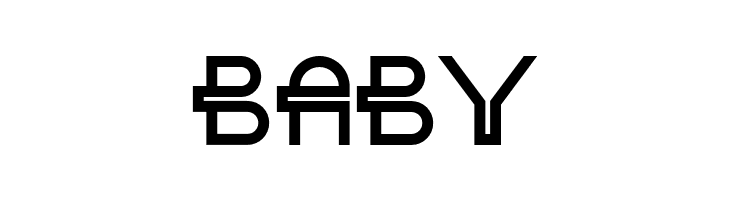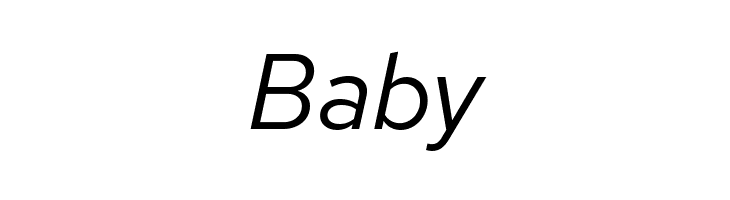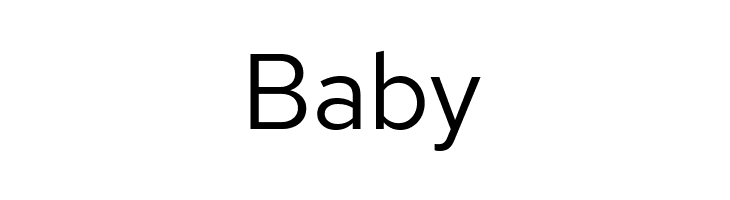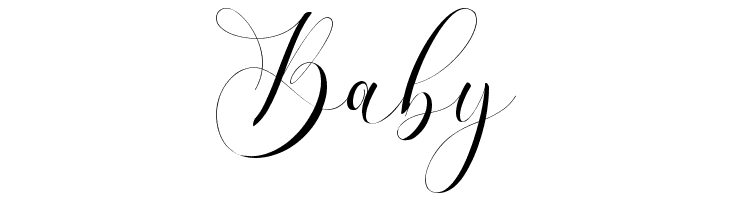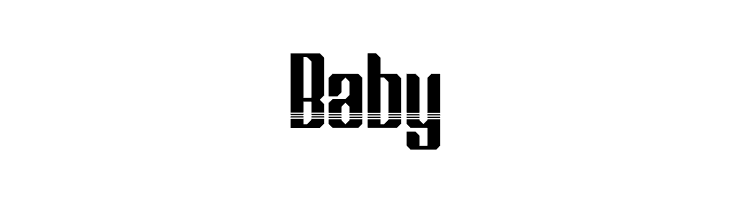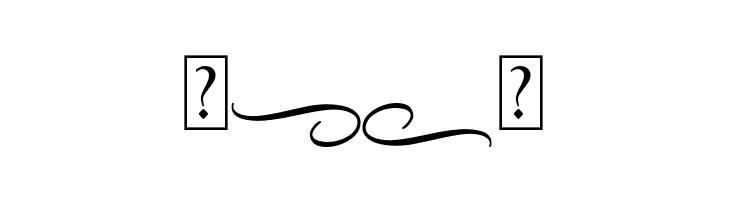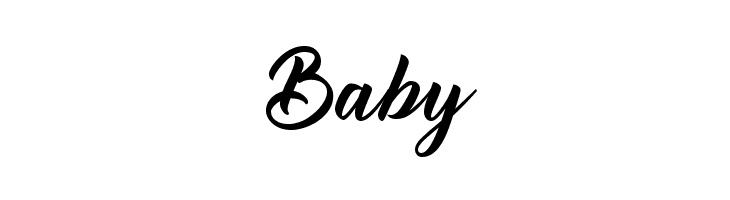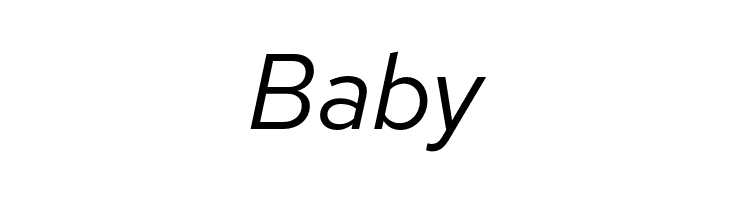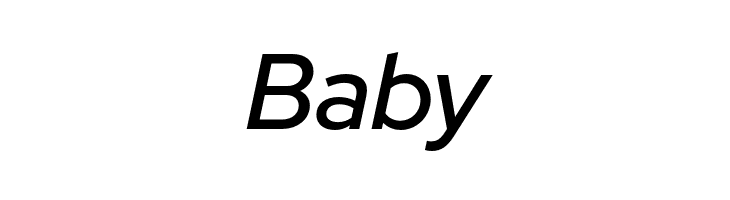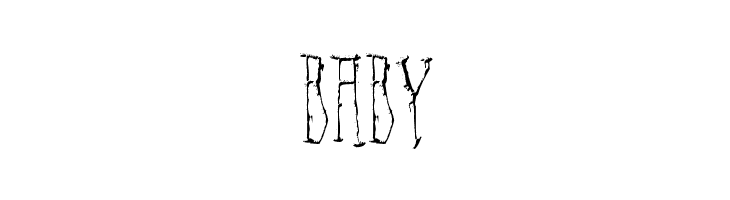
A modern, italic sans-serif font with medium weight and low contrast.
A modern, geometric sans-serif font with clean lines and excellent readability.
A modern, geometric sans-serif font with excellent readability and versatility.
A bold, modern sans-serif font with strong geometric shapes and balanced spacing.
A bold, modern sans-serif font with clean, geometric lines.
A bold, italic sans-serif font with a modern and professional look.
A bold, italicized font with a modern and clean design.
A modern, italic sans-serif font with clean lines and balanced proportions.
A modern, italic sans-serif font with clean lines and excellent legibility.
A modern, geometric sans-serif font with clean lines and excellent readability.
A modern, geometric sans-serif font with balanced proportions and clear readability.
A modern, italic sans-serif font with balanced proportions and high legibility.
A modern, italicized typeface with clean lines and balanced proportions.
A bold, industrial font with a unique horizontal striped pattern.
A playful, casual handwritten font with smooth, flowing lines.
A flowing, elegant script font with smooth, connected strokes.
A bold, geometric font with a futuristic and modern design.
A decorative rope-themed font with a nautical and playful style.
An elegant script font with intricate swashes and flourishes, ideal for sophisticated designs.
A bold, italic font with sharp angles and a reflective, futuristic style.
A bold, flowing script font with elegant and cursive letterforms.
A bold, cursive, and italic font with a dynamic handwritten style.
An elegant font with flowing swashes and intricate curves, perfect for artistic projects.
A distressed, jagged font with an eerie, hand-drawn style.
A sleek, modern font with a slightly italicized and condensed design.
A modern, bold, and slightly italicized font with a sleek, technical appearance.
A modern, slightly italicized font with a sleek and professional appearance.
A modern, geometric font with a monospaced feel, ideal for technical applications.
A modern, geometric font with clean lines and a structured appearance.
A bold, geometric font with excellent readability and a modern design.
A clean, geometric font with a modern and minimalistic design.
A modern, geometric font with uniform strokes and high legibility.